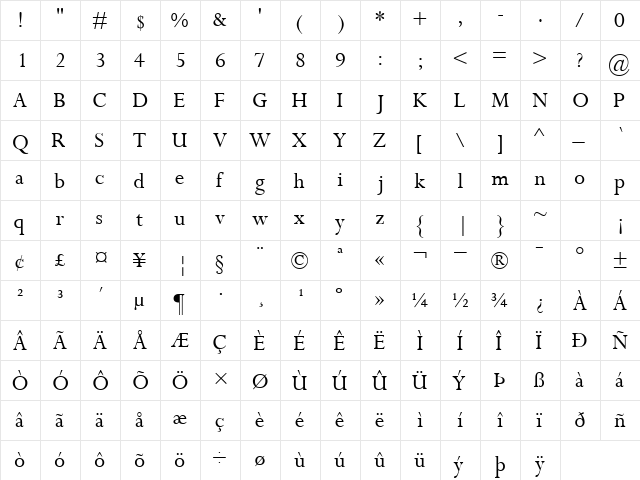
CompleatSSK Regular
Design Context for CompleatSSK Typeface
CompleatSSK offers clean, dependable letterforms without strong stylistic allegiance, making it a practical choice for designers who need flexibility.